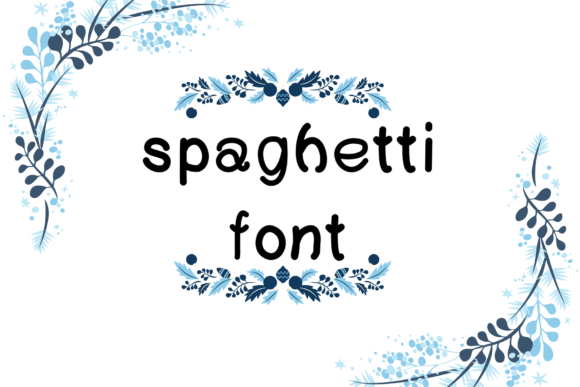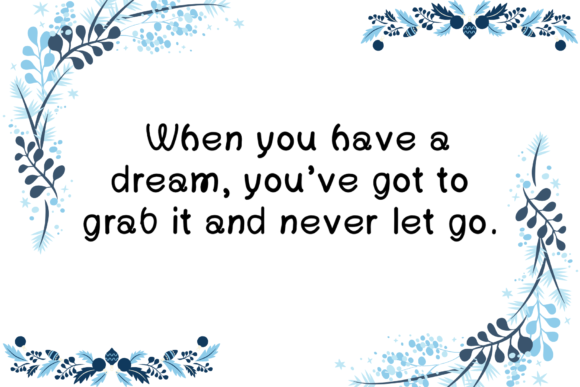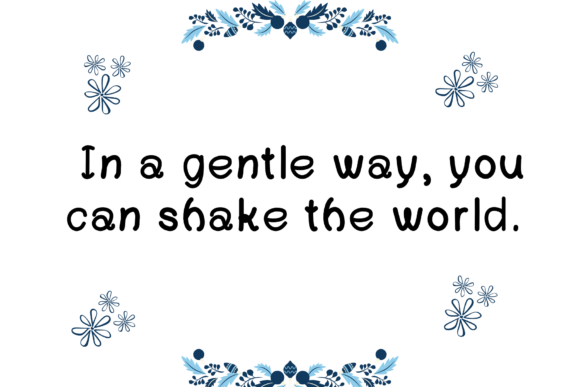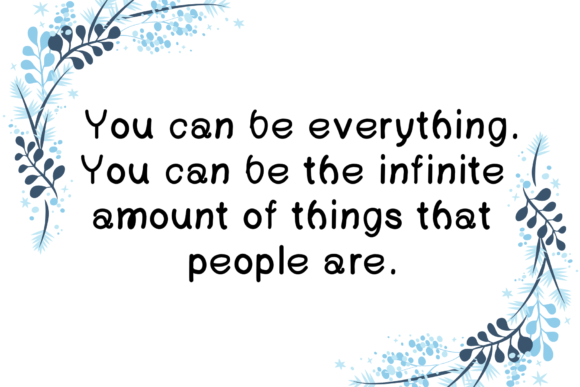
Spaghetti Font
About Spaghetti Font
“Spaghetti Font,” a hand-written font designed to resemble spaghetti, brings a playful and whimsical touch, making it ideal for fun or kids’ content. The unique and quirky nature of this font adds a delightful charm, enhancing creative projects with a touch of humor and creativity.
Imagine “Spaghetti Font” gracing content aimed at children, where its playful appearance creates a lighthearted and entertaining atmosphere. Whether it’s used in educational materials, storybooks, or any design geared towards kids, this font adds a fun element that resonates with a younger audience.
The distinctive design of “Spaghetti Font” makes it stand out in creative projects. Consider using it for playful banners, signage, or any content that could benefit from a touch of whimsy and uniqueness.
Incorporate “Spaghetti Font” into designs that embrace a light-hearted and carefree spirit. From fun event posters to creative product packaging, this font can inject a sense of playfulness and creativity into various visual projects.
The charm of “Spaghetti Font” lies in its ability to add character and fun to your creative endeavors. So, if you’re looking to infuse a bit of whimsy into your designs, especially those aimed at children or projects with a playful theme, this font can be a great choice to make your content stand out.